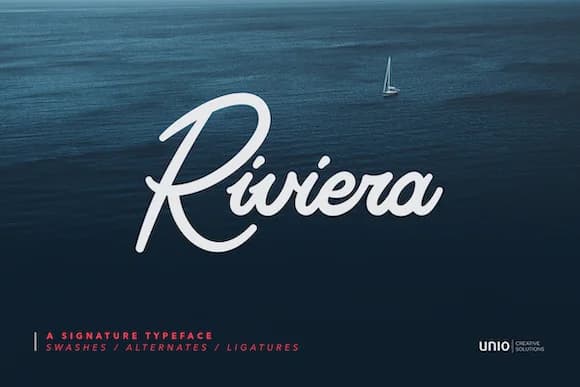
This is a font that feels both genuinely handwritten and contemporary at once. Riviera, by unio.creativesolutions, brings that informal, laid-back energy without ever sliding into careless or overly trendy territory.
It works best in projects where authenticity carries real weight. Wedding invitation suites gain credibility when the lettering suggests a personal message rather than a template. Hand-lettered greeting cards feel right because the script roots itself in actual handwriting, not vector smoothness. Etsy product labels for small makers create immediate trust through that homemade, crafted appearance. Boutique skincare packaging also benefits from Riviera's conversational tone, where customers sense someone real behind the brand rather than a corporate machine speaking down to them. The versatility here is worth noting: Riviera carries enough character to work as a primary display font or to support other elements. Match it with a straightforward sans-serif for body copy or supporting text, and you get the best of both worlds: genuine expression where it matters most, clean legibility where it serves the reader. That combination is what makes this pairing work in actual, functional projects.
Riviera Font is a script font that shines as a display or heading face. Pair it with a clean sans-serif or serif font for body text β the contrast creates a clear hierarchy while the two styles stay balanced and easy to read.